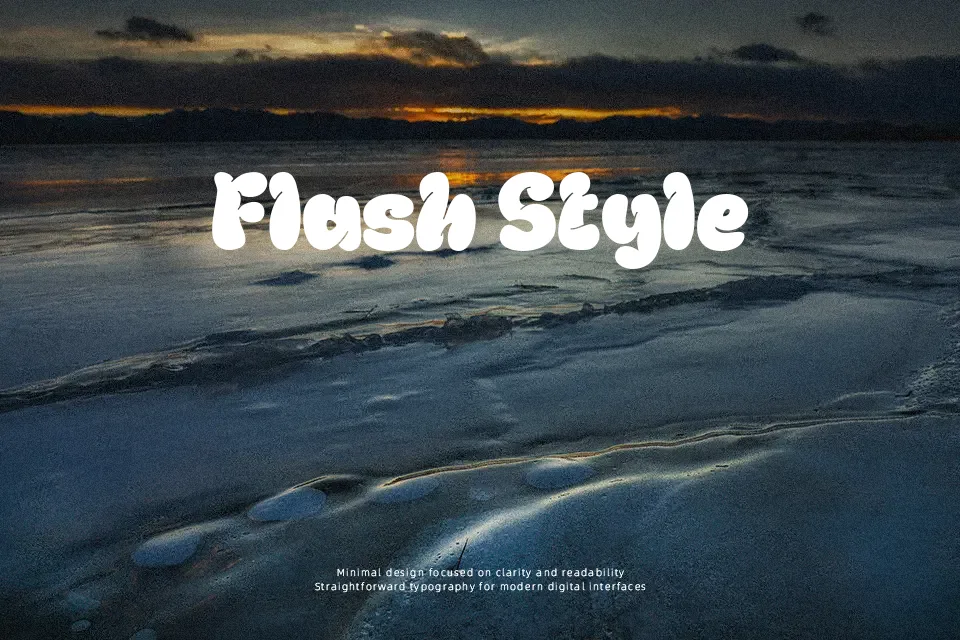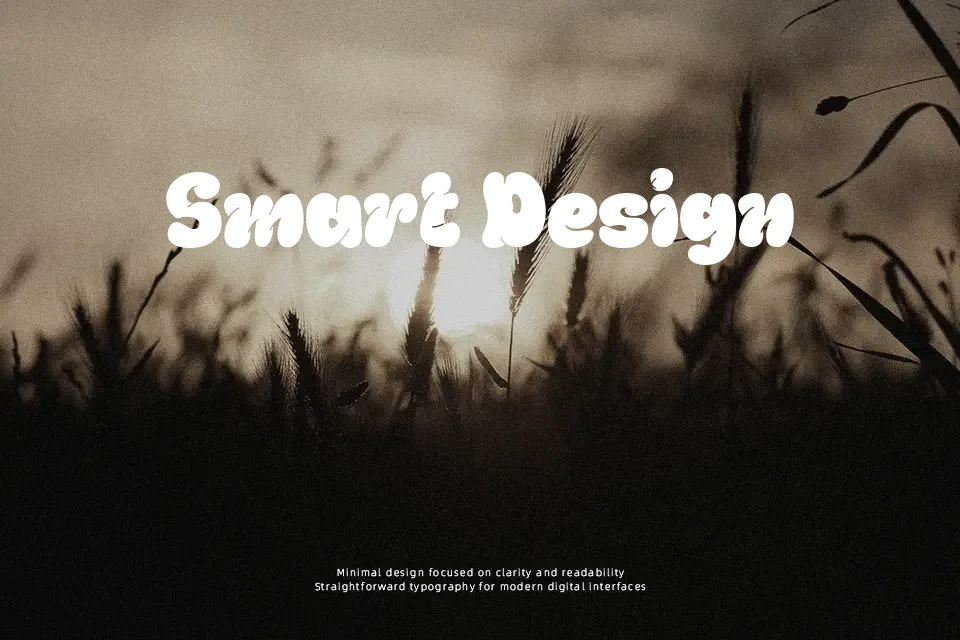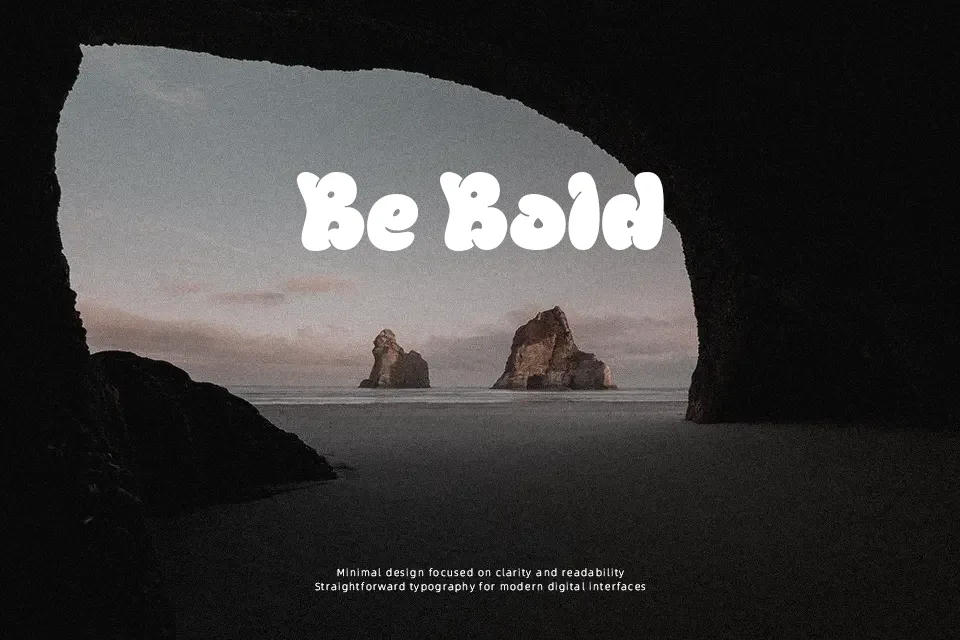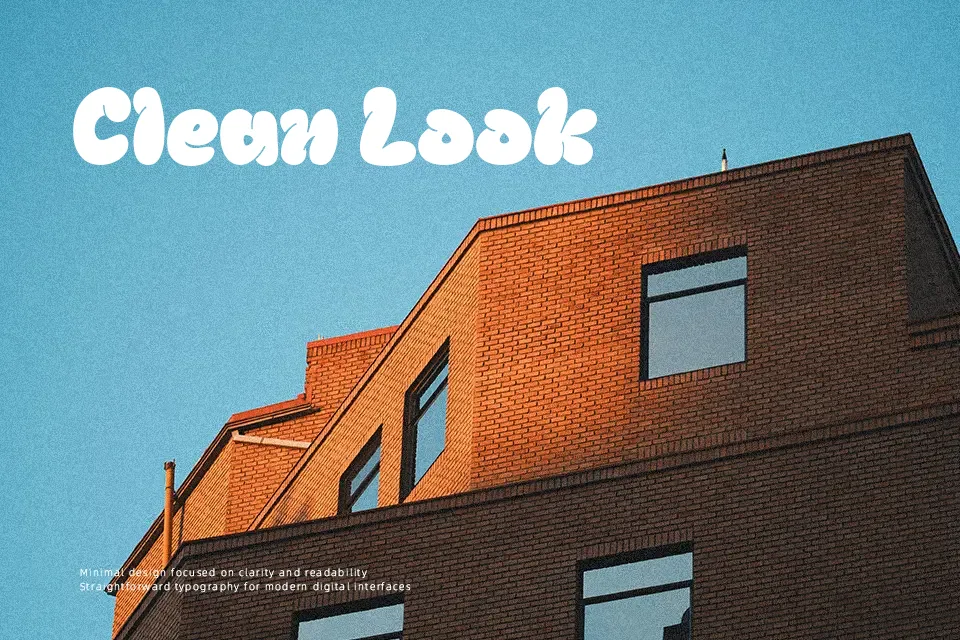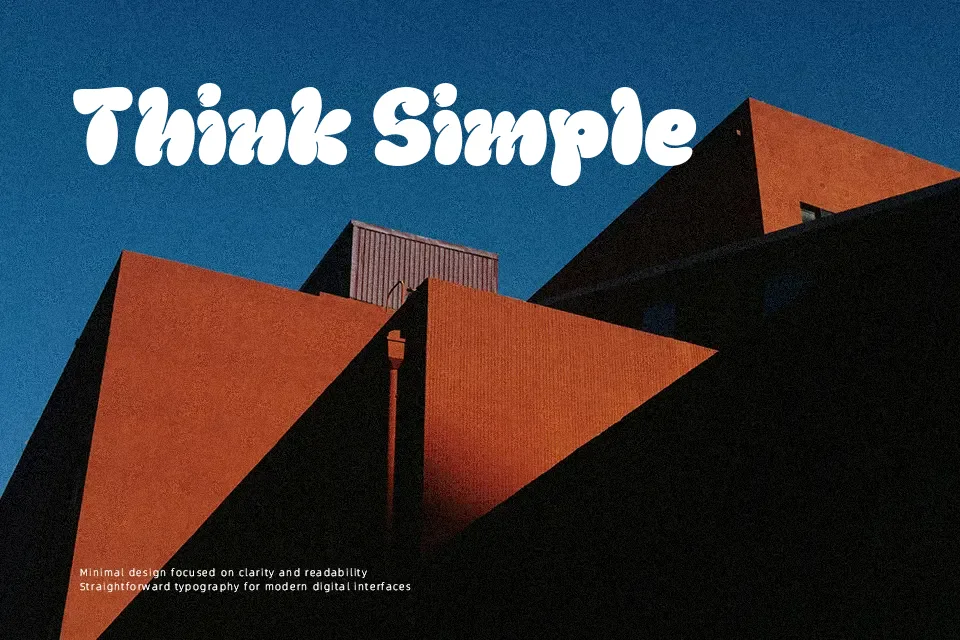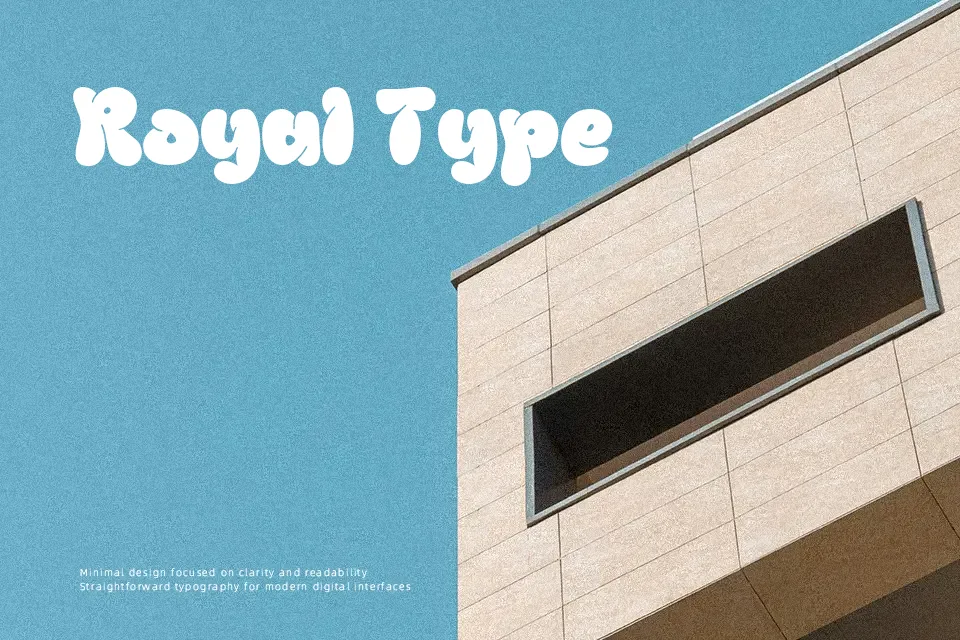
Thurof Font
Designed by twinletter
Thurof Font features plump, balloon-like letterforms characterized by ultra-bold strokes, tightly curved perimeters, and minimal internal counter spaces. Characters maintain an expanded horizontal stance with uniform stroke thickness, creating dense word blocks and snug letter spacing. While this tight visual rhythm yields immediate graphic impact in large display headlines, merchandise graphics, and animated title cards, the swollen geometry reduces clarity when rendered below medium display sizes. The constricted counters tend to fill in under tighter line compositions, making the typeface impractical for sustained body text or detailed UI labels. Spacing helps maintain structural punch primarily when individual glyphs have room to breathe.
Best For: music festival posters, children’s packaging, arcade game logos, casual apparel
Not Ideal For: continuous body text, mobile interface labels, financial spreadsheets, legal documents